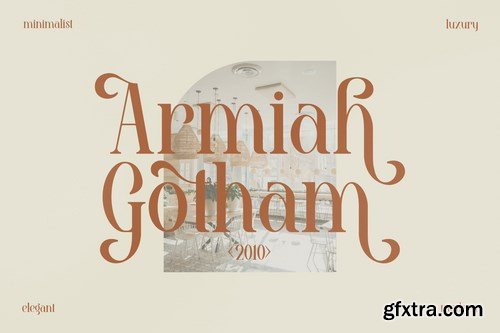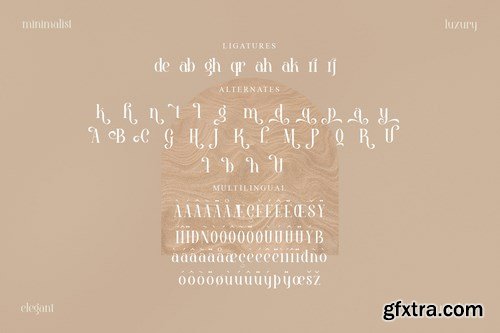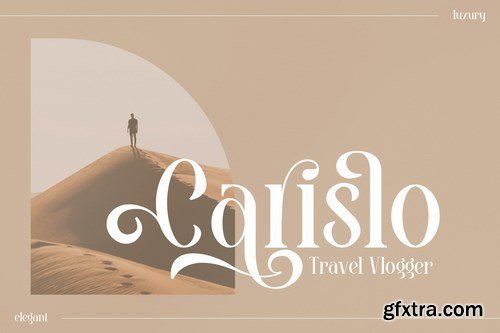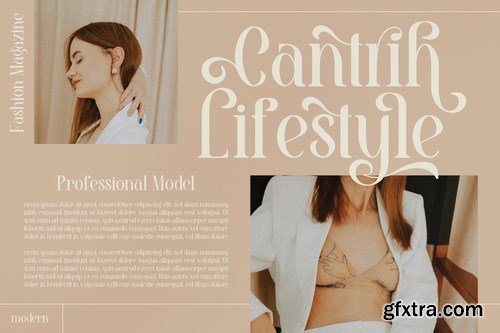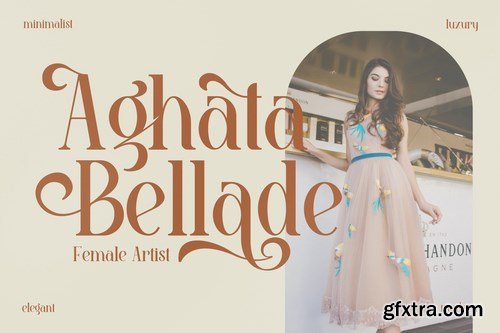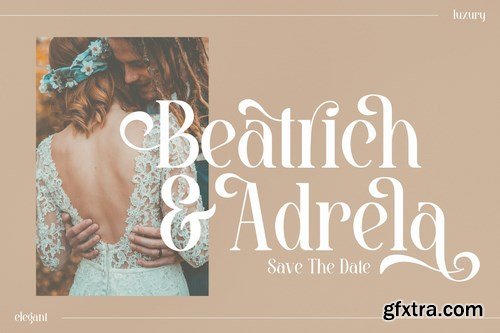
ne of our fonts suitable to complement your digital and printed creative products. This font is perfect for posters, social media posts, branding, personal projects, etc.